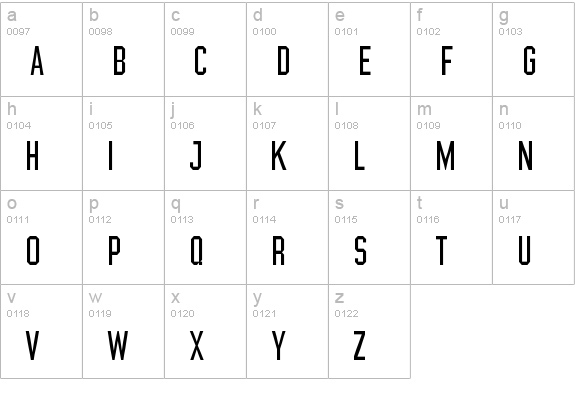
Graphium Light Font Details
Graphium Light is a refined, elegant variant in the Graphium typeface family \xE2\x80\x94 well suited to elegant body text, refined sub-headings, and luxury branding.
Graphium Light is a sleek and modern sans-serif font that exudes elegance and sophistication. With its clean lines and smooth curves, this typeface is perfect for conveying a sense of professionalism and style. The light weight of the font adds a touch of delicacy and refinement, making it ideal for a wide range of design projects. Best of all, Graphium Light is available for free download at FontsMarket.com. Whether you are working on a branding project, creating promotional materials, or designing a website, this font will elevate your work to the next level. Don't miss out on the opportunity to enhance your designs with Graphium Light - download it now and start creating stunning visuals today!